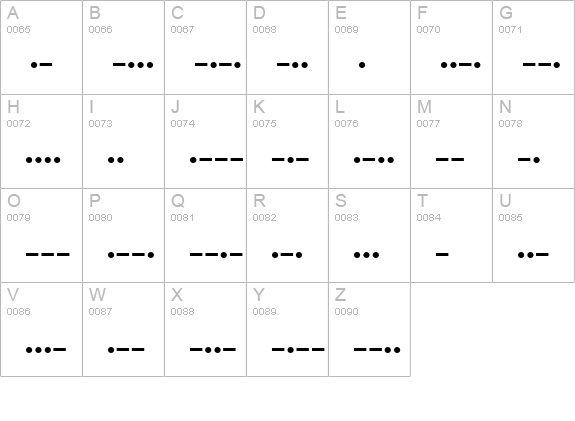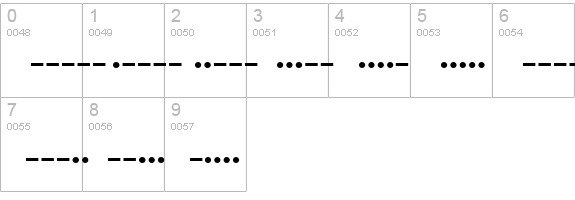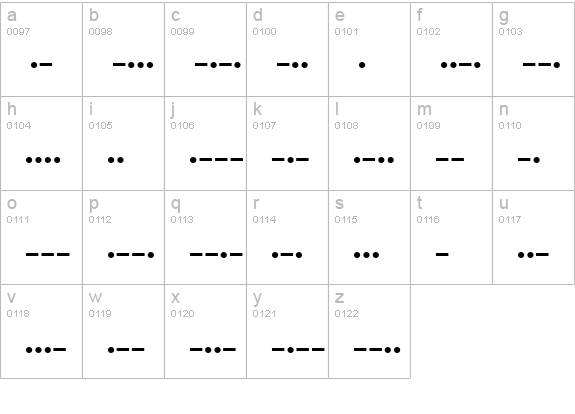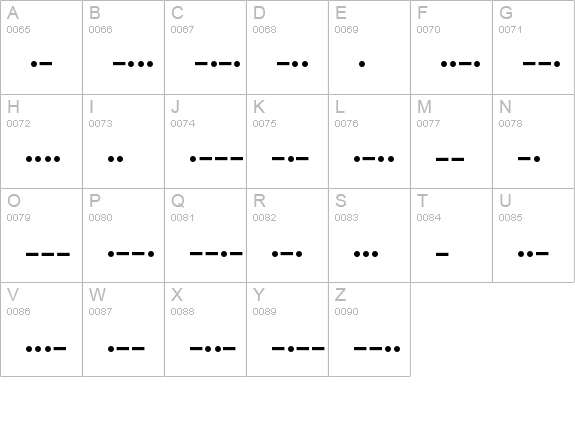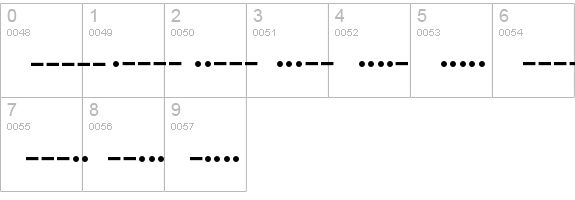
XInterntnlMorseCodeIT Font Details
XInterntnlMorseCodeIT is a unique and visually captivating font that brings a modern twist to the classic Morse code communication system. Its intricate design features a seamless blend of dots and dashes, creating a captivating visual representation of the iconic code. This font is not only stylish and eye-catching but also serves as a nod to the rich history of Morse code and its significance in communication. What sets XInterntnlMorseCodeIT apart is its versatility and ability to add a touch of mystery and intrigue to any design project. Whether used for headlines, logos, or graphic elements, this font is sure to make a bold statement and capture the attention of viewers. Best of all, XInterntnlMorseCodeIT is completely free to download at FontsMarket.com. This means that you can easily incorporate this unique font into your projects without any cost, making it accessible to designers of all levels. Don't miss out on the opportunity to add a touch of Morse code magic to your designs with XInterntnlMorseCodeIT!